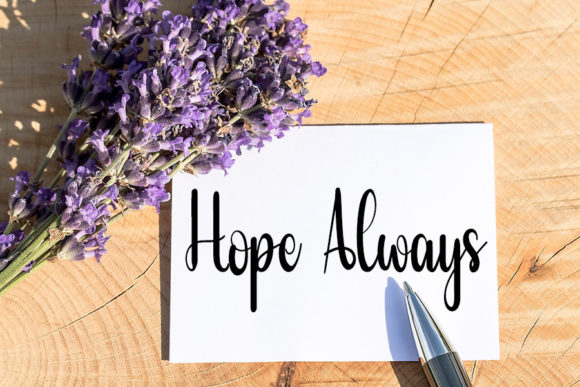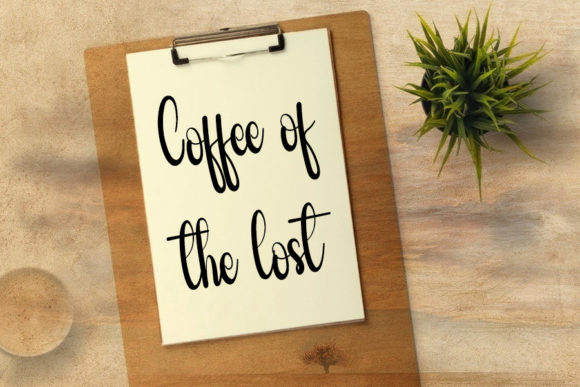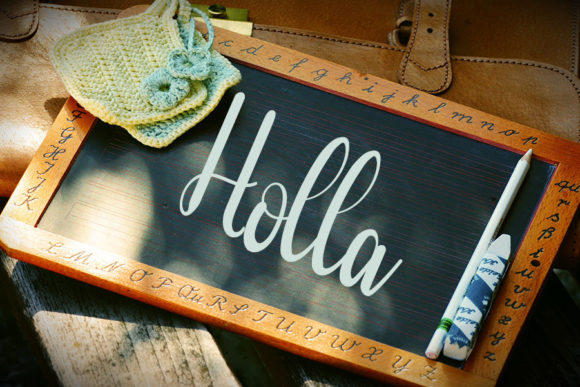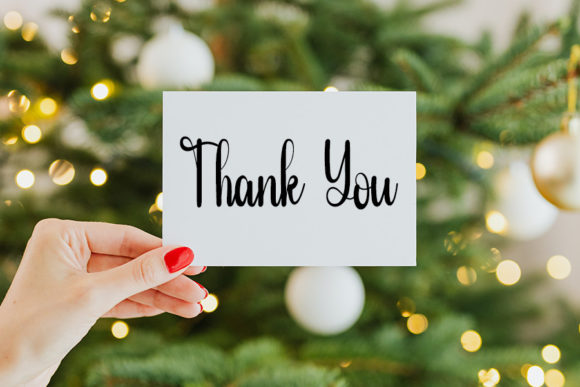
Introduction to Girly Things Font
Girly Things is a lovely handwritten font that will make your work stand out through its elegant and curvy lines.
It is perfect for product packaging, branding project, magazine covers, social media, weddings, or just used to express words above the background .